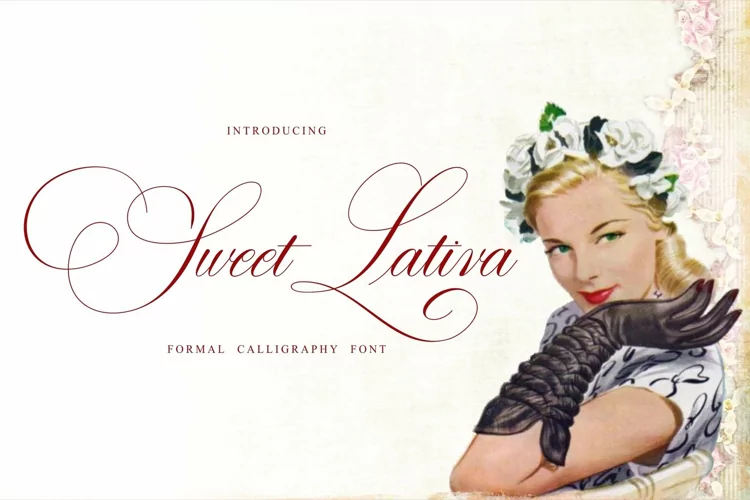
Introducing Sweet Lativa
Sweet Lativa is a formal font in a slant style. with its OpenType feature, it recreates the handwriting feelings of medieval Italian women. This is a very nice font for editorial and graphic design.
Sweet lativa is perfect for logo projects, wedding invitation cards, branding, home design, product packaging, quotes, logos, book covers, business cards, greeting cards and all other beautiful projects.
You can use this font for your job very easily. Because there are many features in it. Contains the complete set of lower and uppercase letters, punctuation, numbers, and multilingual support. This font also includes several ligatures and alternative style Stylistic Set For those of you who have software that is capable of working OpenType (Corel Draw / Photoshop / Illustrator / InDesign).